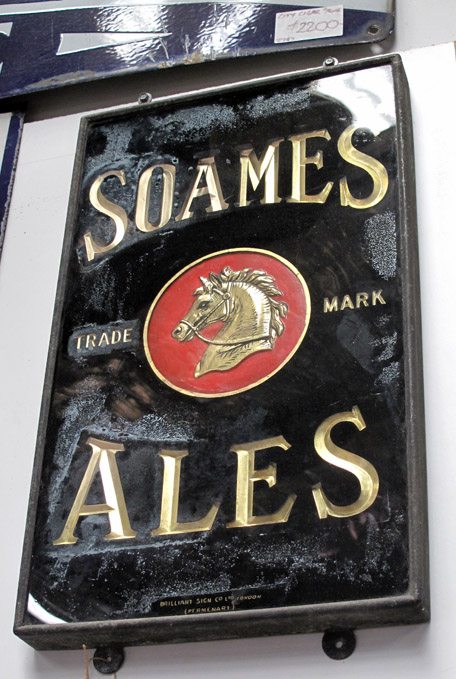
Signs From Sydney Australia
Hey guys here are a few signs I saw a while ago in an antique store here in Sydney. Does anyone know what the finish is in the Caldwell Wines mirror (sorry not the greatest flicks). Its not a finish I have really seen before. Cheers Will
Re: Signs From Sydney Australia
Thanks for the photos. The texture in that piece is a mica acid emboss.Enjoyed seeing those.
Re: Signs From Sydney Australia
I would be lead to believe that the texture on the Caldwell's lettering is a "spounged" acid resist, like asphaltum, into the open area of the letter centers, then a face up liquid acid emboss.....
Re: Signs From Sydney Australia
Hey there Willy. Larry is right on the nail. It's a traditional English way of embossing text and backgrounds sponged with Brunswick black or Ashaltum. When you were here we acid etched with mica but on this sign and some others its been lead foil backed and then stippled with the Brunswick once it's dry it's flooded with acid, probably 1 part to 4 parts for an hour or poss 2,this gives a nice clean emboss without aggresion, it looks like mica but not really nessasary with all the sponged effect going on. Did you buy them?
Re: Signs From Sydney Australia
$9000 is hitting pretty hard, but i suppose the days of finding bargain prices on old mirrors is going to disappear completely, if it hasn't already.
Incidentally, for non-Australian readers, the Tooth's KB lager was a well-known old Sydney brand that commissioned a lot of mirrors, many of them with full pictorials featuring sports themes. These days you usually only see them inside, but originally, they were mounted on the outside walls of the hotels as advertising.
Somewhere, I have a book on Sydney pubs featuring a few photos of some Tooth's pictorial mirrors. I'll try to find it and post a few online.
Re: Signs From Sydney Australia
Hi Bruce. Been meaning to ask you for some time your thoughts on what was used for pictorial transfers that were applied to the back of those panels? I know some were painted by hand but also alot were paper litho transfers which held up very well. Lee littlewood made a alot of research into waterslide transferes but I always wondered what they would of used for an adhesive for the paper pictorials, they never seem to go yellow from the ones I have seen and worked on. depending the light source and position of the glass is probably a big factor.
Re: Signs From Sydney Australia
so for "lead foil backed" work you apply the foil to the glass, cut out the centers with a knife and weed them, then sponge a resist on and expose to acid?
What holds the foil to the glass?
Can you re-use the foil?
It sounds like a harder way to do what we do now with silkscreen; but then it probably didn't get bleeds and pinholes, or break down after a long time in the bath. Why would you do a long time in the bath?
Lead foil seems like another old material with a lot of uses that has totally gone away; maybe to the benefit of our health. I think I remember reading about cutting lead foil stencils and laying them on show cards, then airbrushing through the stencil. If wiped off and stored flat they would last forever. / Bob Gamache showed a nice example of a glass sign done with foils and paint in this forum on May 11. / There is an older building in downtown Portland that still has some lead baseboard (now we're talking lead sheet, not foil) and cast lead statue niches - they are a very cool soft grey color, with a nice dull sheen. / And of course people around here are still pulling lead plumbing pipe out of old houses, and I got to watch a guy melt lead into a cast iron plumbing pipe joint to seal the connection.
So lead work was a real deal, and now I guess it has gone the way of silent movie title cards.
Re: Signs From Sydney Australia
Please tell all about "Glass Mat Paste". What does it for you, or do to you?